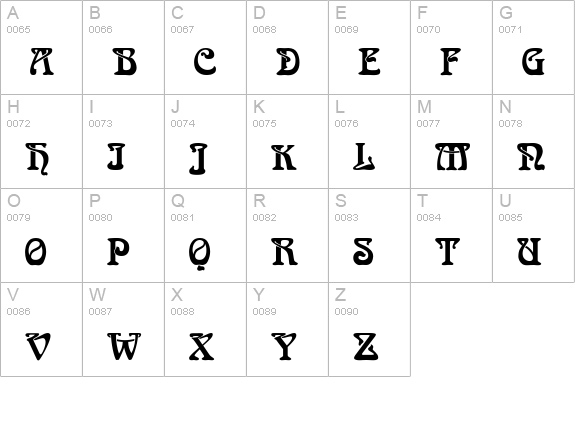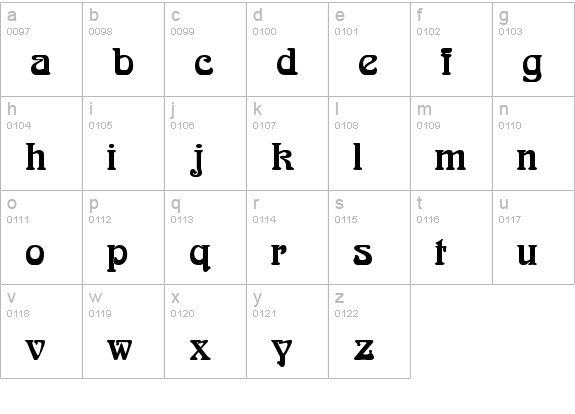
ArnoldBoecklin-ExtraBold Font Details
ArnoldBoecklin-ExtraBold is an extra-heavy, attention-grabbing variant in the ArnoldBoecklin typeface family \xE2\x80\x94 well suited to high-impact headlines, posters, and bold branding.
ArnoldBoecklin-ExtraBold font is a bold and commanding typeface that exudes strength and confidence. With its thick, robust letterforms, this font is perfect for making a bold statement in your designs. Whether you're creating a striking headline or a powerful logo, ArnoldBoecklin-ExtraBold will grab attention and leave a lasting impression. The best part is that ArnoldBoecklin-ExtraBold font is available for free download at FontsMarket.com. This means you can access this powerful typeface without any cost, making it an excellent choice for both personal and commercial projects. Don't miss out on the opportunity to enhance your designs with the striking presence of ArnoldBoecklin-ExtraBold font. Download it today and let your creativity shine!